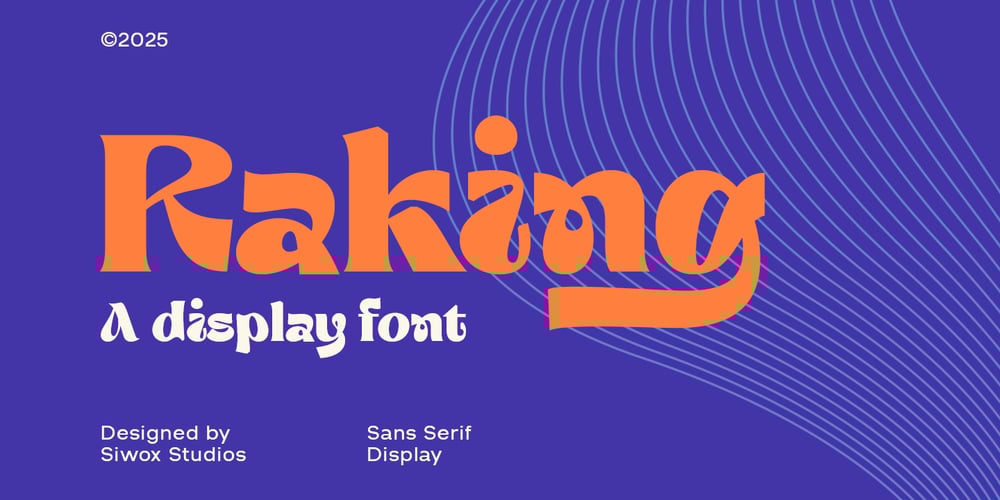
Raking
Raking font
Raking Font Family was designed by Sarwo Edy, Rizaldi Wandani and published by Siwox Studios. Raking contains 1 styles and family package options. Raking Font is a bold and elegant display font equipped with Alternate and Ligature that is suitable for branding, posters, logos, and advertisements. This font ensures that the message conveyed through the text remains easy to read and understand.